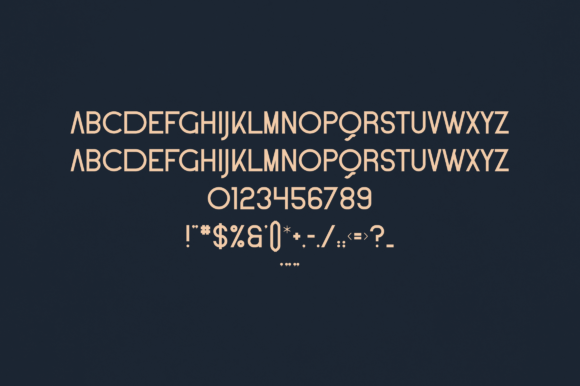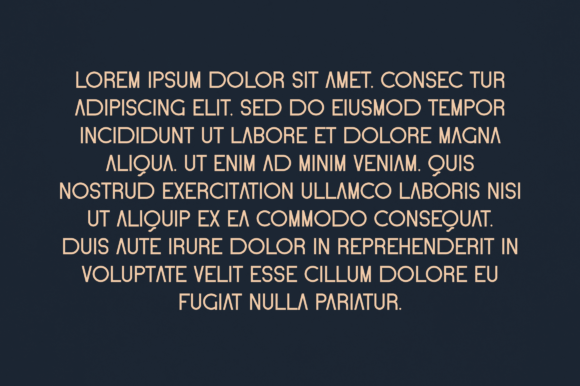
Introducing Azalea Font: Elevate Your Typography with Elegance and Versatility
Are you tired of using the same old fonts for your design projects? Look no further than Azalea Font, a stunning sans serif font that is sure to make your typography truly unique. With its elegant and versatile design, Azalea Font is perfect for a wide range of applications, from logo design and branding to headlines, packaging, and more.
Azalea Font is a game-changer for designers and crafters who want to add a touch of sophistication and style to their work. Its clean and modern sans serif design makes it easy to read and versatile enough to use in a variety of contexts. Whether you’re working on a branding project, creating a product label, or designing a magazine header, Azalea Font is the perfect choice.
What Makes Azalea Font So Special?
So, what sets Azalea Font apart from other fonts on the market? Here are just a few of its standout features:
- Elegant and Versatile Design: Azalea Font has a sleek and modern design that is both elegant and versatile. Its sans serif design makes it easy to read and perfect for use in a variety of contexts.
- Unique and Eye-Catching: With Azalea Font, you can create truly unique and eye-catching typography that will set your design apart from the crowd.
- Perfect for Branding and Logo Design: Azalea Font is perfect for branding and logo design projects, where a unique and memorable font can make all the difference.
- Easy to Read: Despite its elegant and stylish design, Azalea Font is also easy to read, making it perfect for use in body text and other applications where readability is key.
Use Azalea Font in a Variety of Applications
Azalea Font is a versatile font that can be used in a wide range of applications, including:
- Branding Projects: Use Azalea Font to create a unique and memorable brand identity that will set your business apart from the competition.
- Home-Ware Designs: Add a touch of elegance and sophistication to your home-ware designs with Azalea Font.
- Product Packaging: Use Azalea Font to create eye-catching and effective product packaging that will stand out on store shelves.
- Magazine Headers: Add a touch of style and sophistication to your magazine headers with Azalea Font.
- Text Overlays: Use Azalea Font as a stylish text overlay to add a touch of elegance and sophistication to any background image.
Why Choose Azalea Font?
So, why should you choose Azalea Font for your next design project? Here are just a few reasons:
- High-Quality Design: Azalea Font is a high-quality font that is designed to deliver exceptional results.
- Easy to Use: Azalea Font is easy to use and can be easily integrated into your design workflow.
- Versatile: Azalea Font is a versatile font that can be used in a wide range of applications.
- Unique and Eye-Catching: Azalea Font is a unique and eye-catching font that will help your design stand out from the crowd.
In conclusion, Azalea Font is a stunning sans serif font that is perfect for designers and crafters who want to add a touch of elegance and sophistication to their work. With its elegant and versatile design, Azalea Font is perfect for a wide range of applications, from branding and logo design to product packaging and magazine headers. So why wait? Download Azalea Font today and take your typography to the next level!